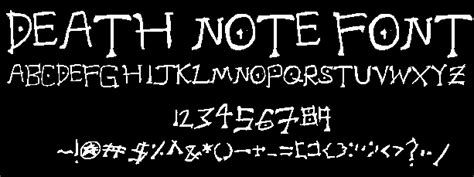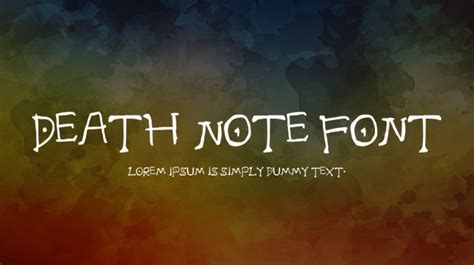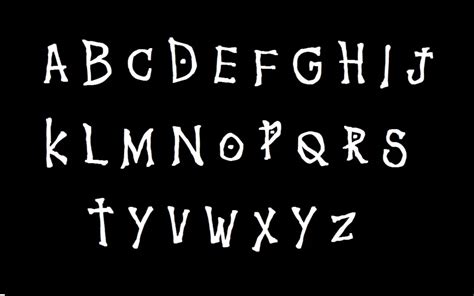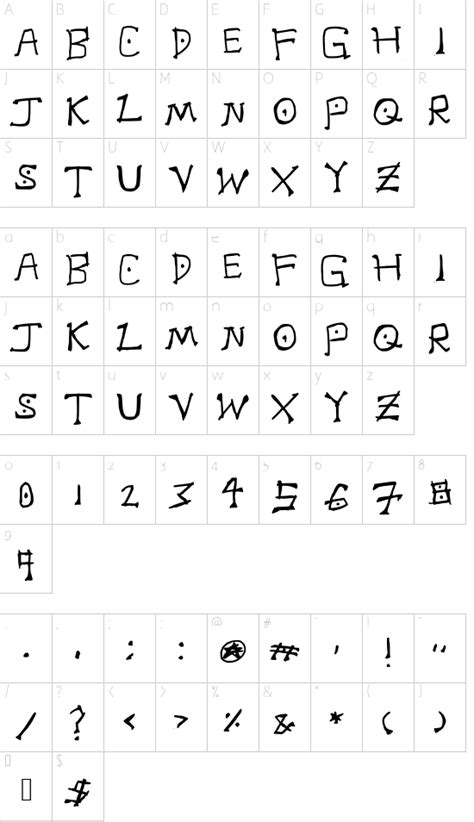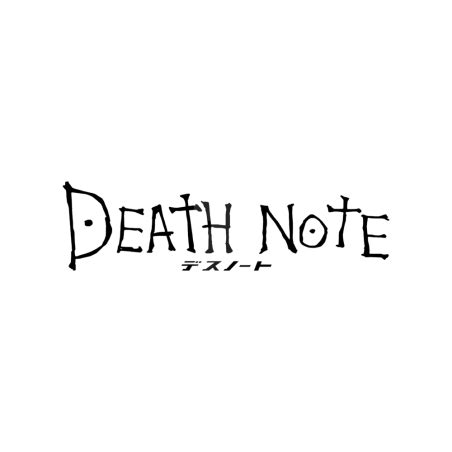
FONT DEATH NOTE
The font death note is a fascinating concept that has captured the attention of many, especially those with an interest in typography and design. It refers to a unique style of font that has gained popularity for its distinctive appearance and the sense of mystery it brings to any design project. This font is not just about aesthetics; it also carries a symbolic meaning that has resonated with many users.
The font is inspired by the iconic Death Note, a popular Japanese manga and anime series. In the story, the Death Note is a notebook that, when used by a person with a pure heart, allows them to kill anyone by writing their name in the notebook. This font draws its name from the idea of a powerful tool that can bring about change, but with a cautionary tale attached. The font's design often incorporates elements that evoke a sense of mystery and intrigue, much like the Death Note itself.
One of the key benefits of using this font is its ability to convey a sense of authority and elegance. The unique strokes and characters can make any text stand out, making it ideal for headings, titles, and important messages. Its distinctive style can also add a touch of sophistication to marketing materials, websites, and even personal projects, ensuring that the content captures the reader's attention and leaves a lasting impression.